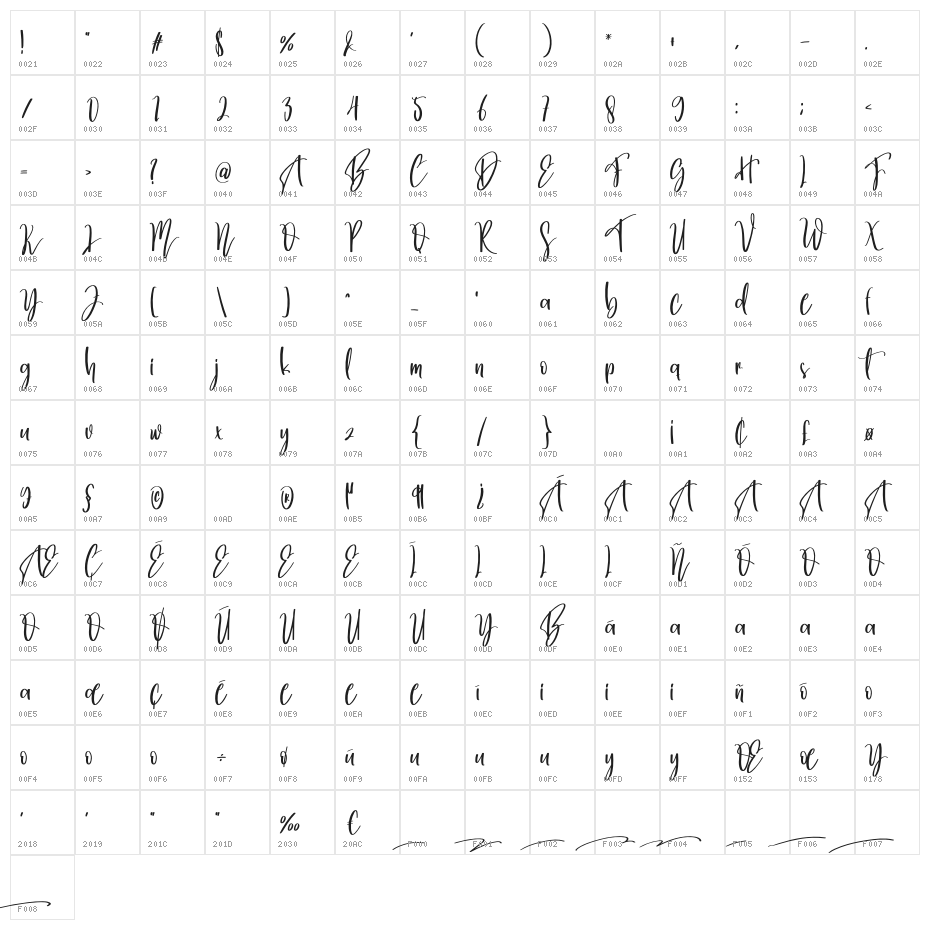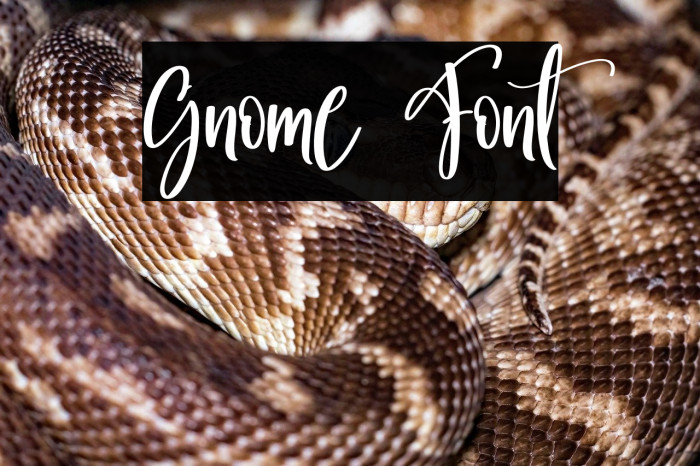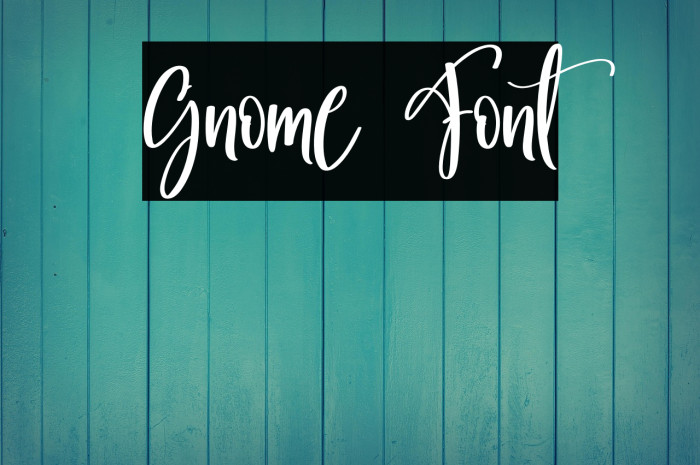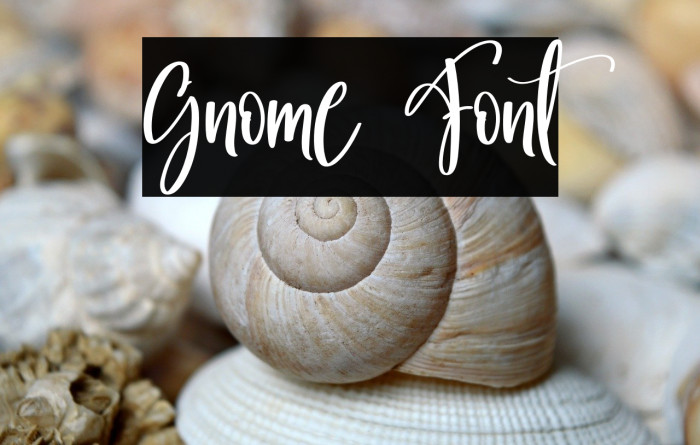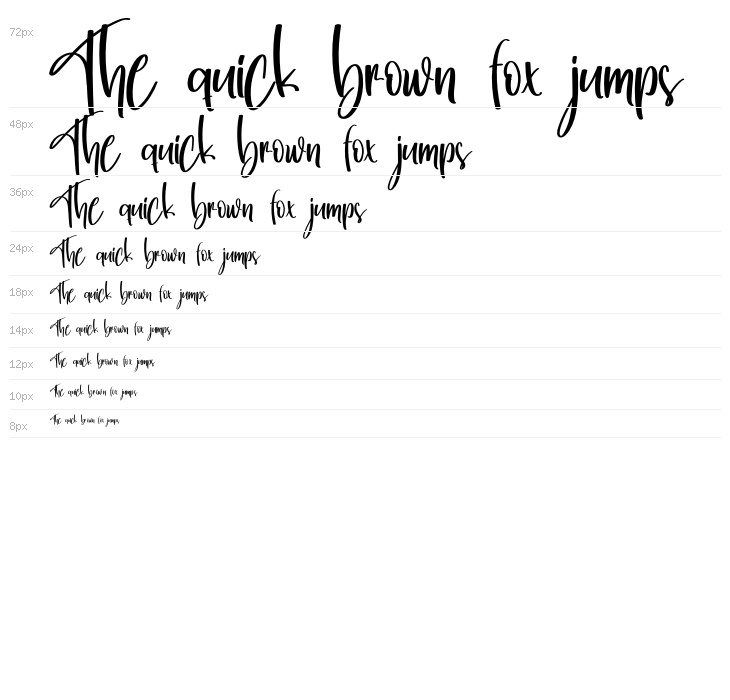
Gnome Font
Gnome Description
This font features a whimsical and flowing script style, characterized by its elegant and playful curves. The letters are interconnected, giving a sense of fluidity and movement. The uppercase letters are bold and expressive, while the lowercase letters maintain a consistent and harmonious flow. The numerals and special characters are designed to complement the overall aesthetic, adding to the font's charm. This font exudes a sense of creativity and artistic flair, making it suitable for projects that require a personal and handcrafted touch.
| Proposed Projects | Ideal for wedding invitations, greeting cards, branding projects, and artistic posters. |